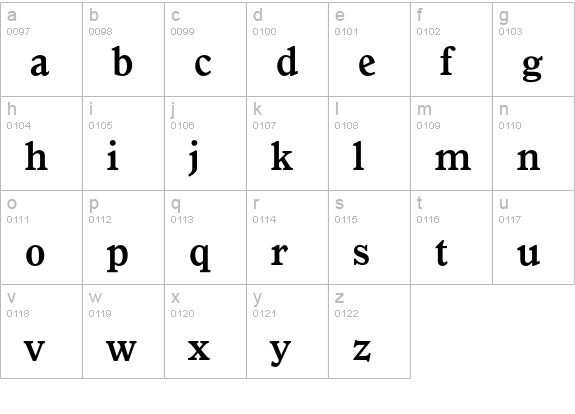
Granada-DemiBold is a sub-bold, structured variant in the Granada typeface family \xE2\x80\x94 well suited to sub-headlines and emphasised passages.
Granada-DemiBold is a versatile and modern font that exudes sophistication and elegance. With its bold yet graceful curves, this typeface is perfect for creating eye-catching headlines, logos, and branding materials. The Granada-DemiBold font strikes the perfect balance between classic and contemporary design, making it a versatile choice for a wide range of design projects. And the best part? Granada-DemiBold is available for free download at FontsMarket.com. So whether you're a seasoned designer looking to add a new font to your collection or a beginner looking for a stylish typeface to elevate your projects, Granada-DemiBold is the perfect choice. Download now and unlock the endless creative possibilities that this stunning font has to offer.